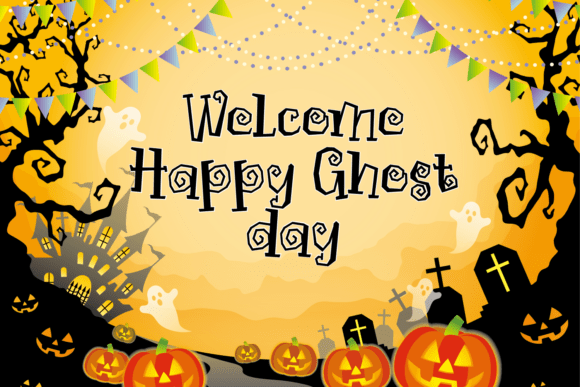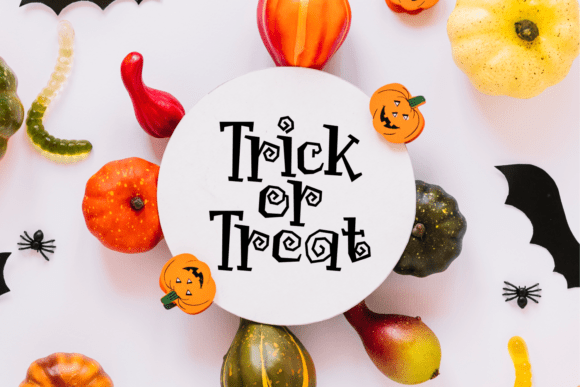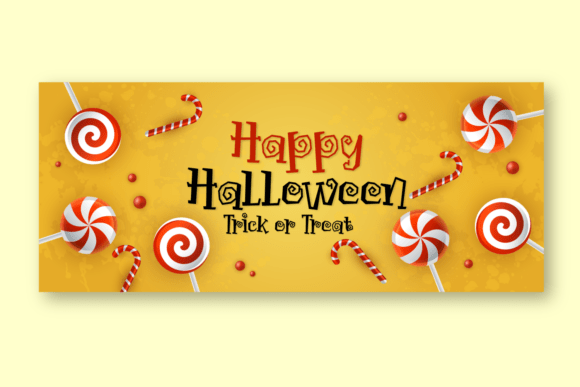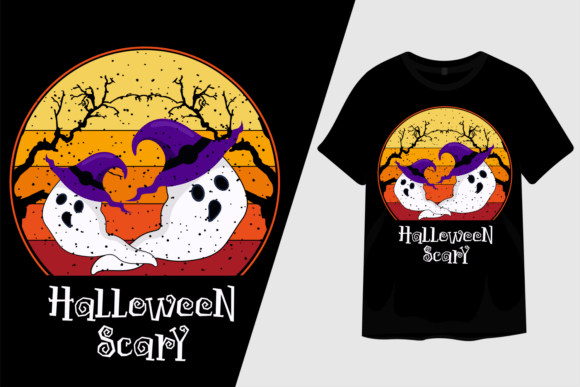
Introduction to Perfect Round Font
Perfect Round is a quirky Halloween-themed display font that brings a playful fright to your festive designs.
With its mix of whimsical, jagged letterforms and eerie embellishments, itโ€™s ideal for Halloween party invitations, spooky merch, haunted house signage, and childrenโ€™s books The font captures the perfect balance between creepy and cute, making it a frightfully fun addition to your creative toolkit.
Key Features of Perfect Round Font
Why Choose Perfect Round Font?
Perfect Round Font offers exceptional quality and versatility, making it a valuable addition to your design toolkit. Whether you’re creating for personal projects or commercial use, Perfect Round Font delivers professional results.